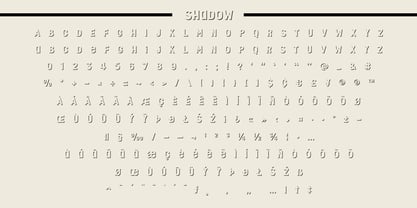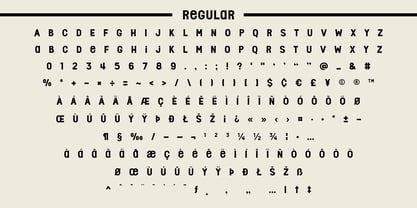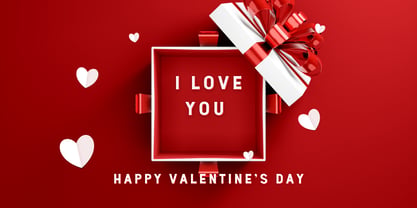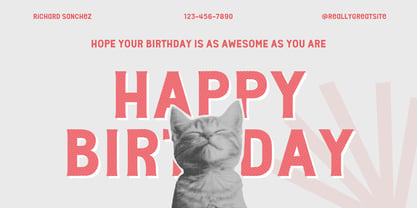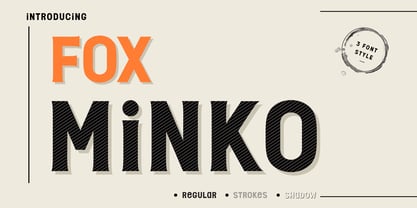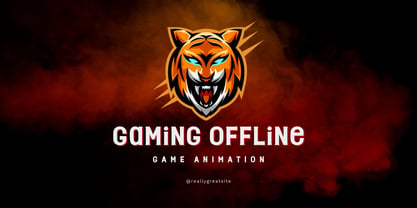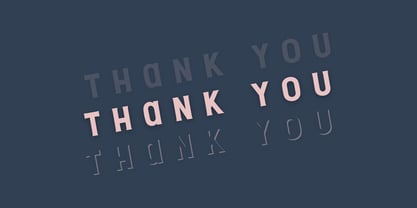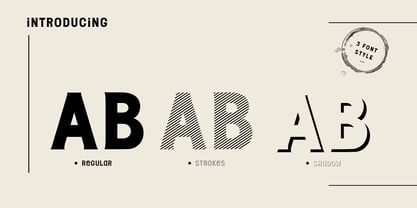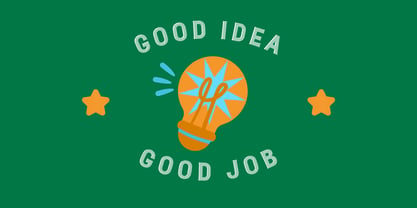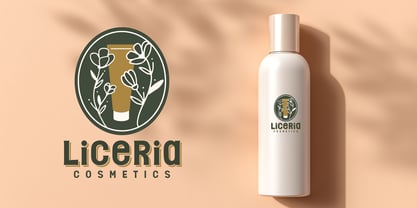
Fox Minko
Die Schriftfamilie Fox Minko wurde von Rattana Rattanawan entworfen und von Fox7 veröffentlicht. Fox Minko enthält 3 Stile und Familienpaketoptionen. Mehr über diese Familie
Fox Minko is a bold retro display font inspired by vintage posters and classic typography with a modern twist. Its strong letterforms, playful proportions, and clean geometry make it perfect for eye-catching designs that need personality and confidence. This font comes with 3 versatile styles: ✨ Regular – solid and bold, perfect for logos and headlines ✨ Strokes – adds texture and retro charm with striped details ✨ Shadow – creates depth and a nostalgic layered look Fox Minko works beautifully for branding, logos, packaging, posters, social media graphics, quotes, apparel, and advertising designs. Whether you want a classic retro vibe or a bold modern statement, this font gives you flexibility and character in one family.